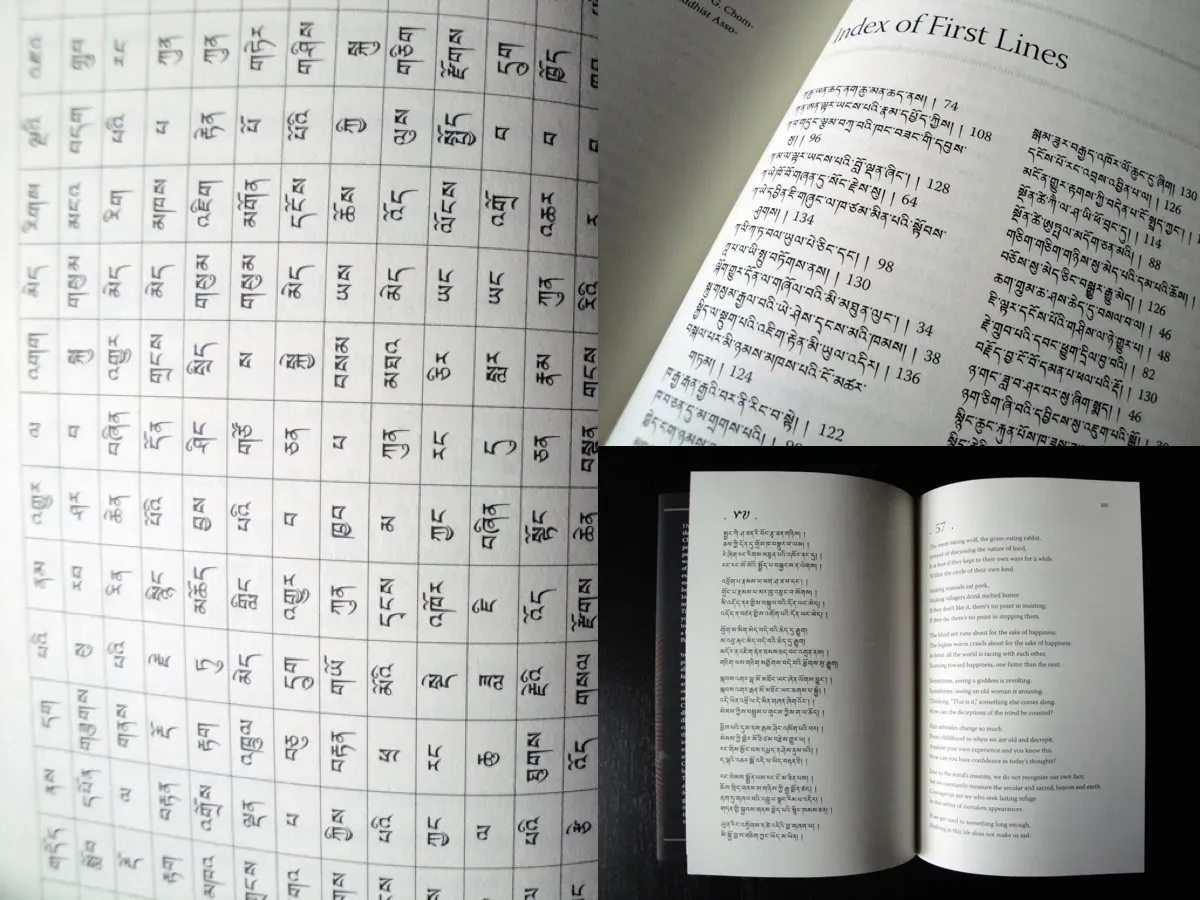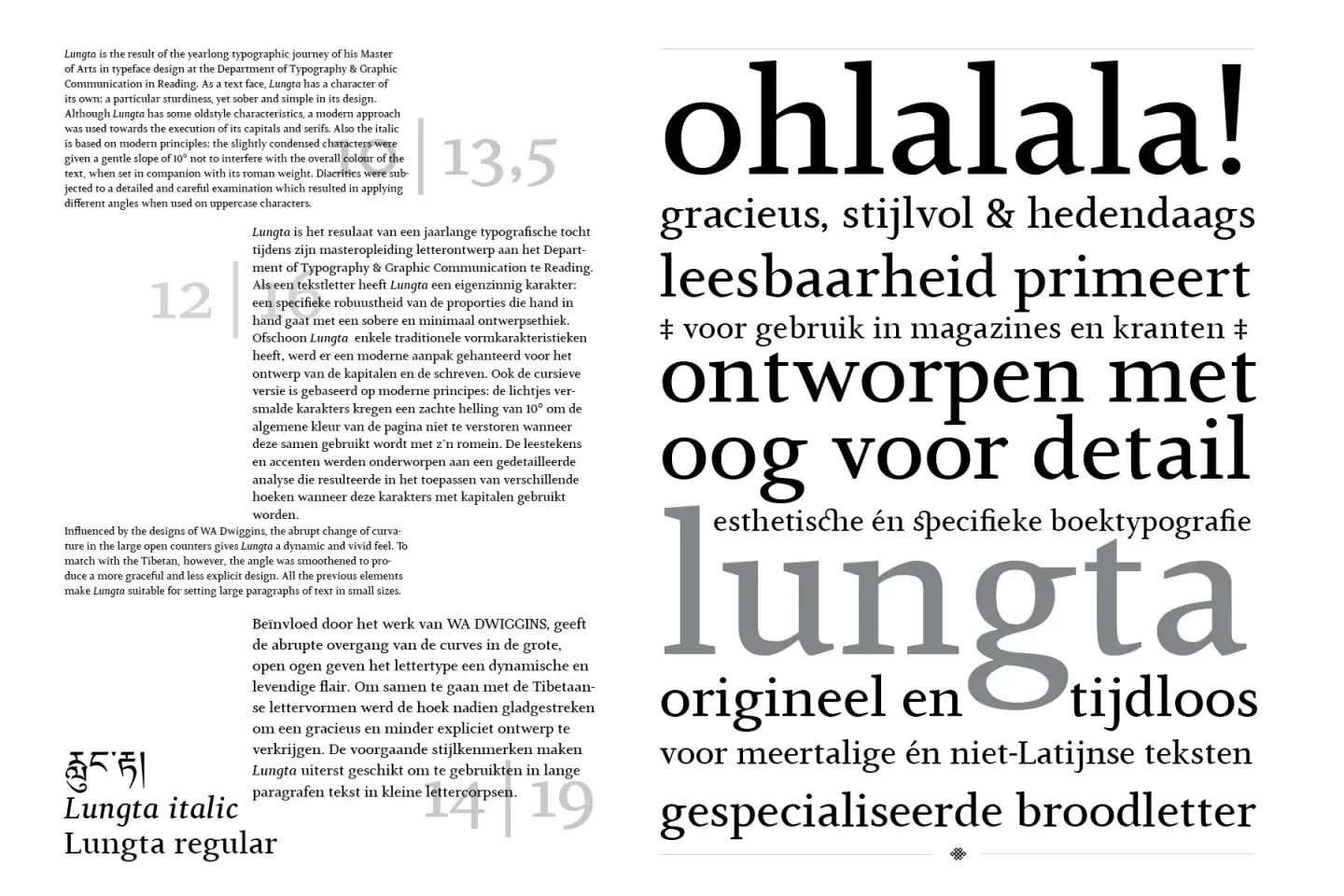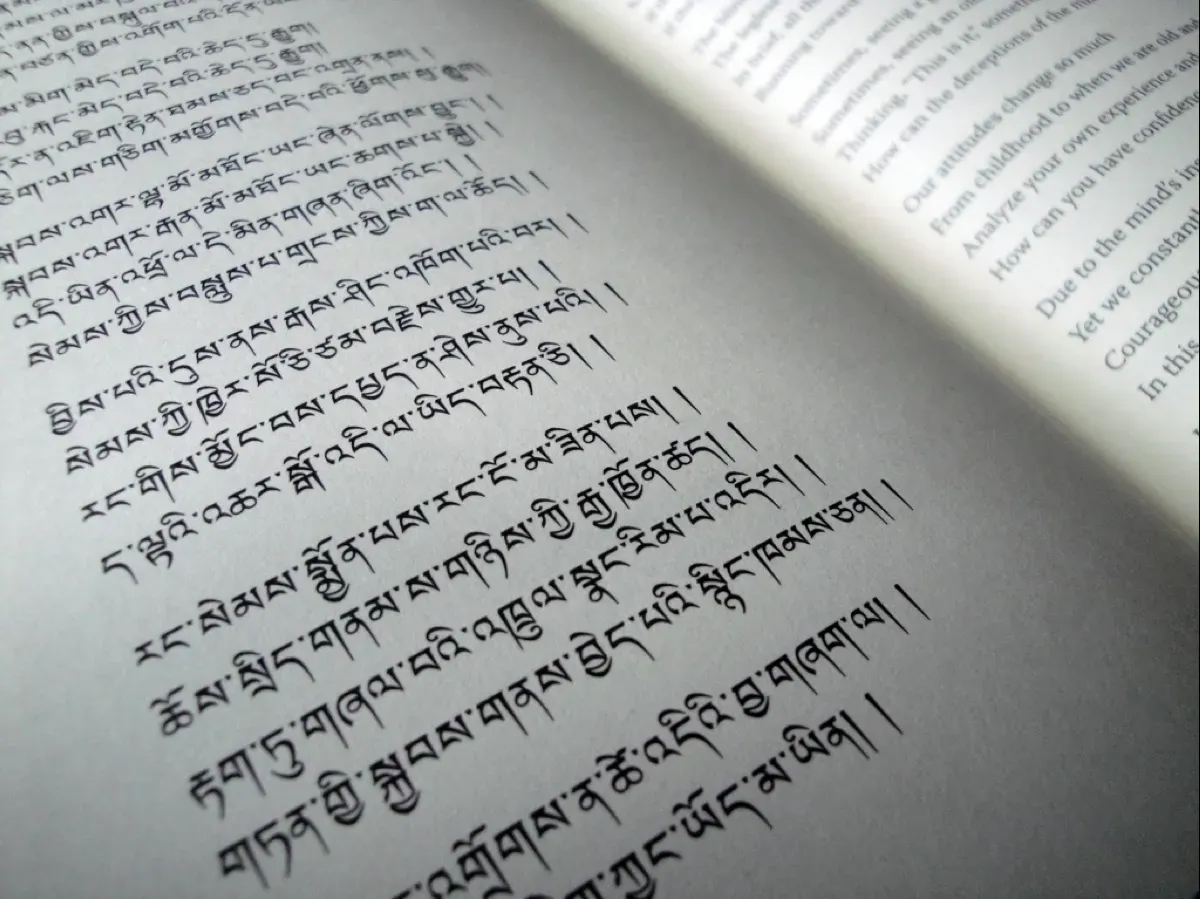
Lungta is the result of a yearlong journey through the amazing world of typeface design at the Department of Typography and Graphic Communication of Reading University.Having set out on creating a typeface of my own, I eagerly accepted the challenge to design a Tibetan font. The final goal was creating a refined digital typeface, attuning a Latin set and making it compatible with a Tibetan one.
As a text face, Lungta has a character of its own: a particular sturdiness, yet sober and simple in design, with large open counters. Although it has some old-style characteristics, a modern approach was used towards the design of its capitals and serifs. Also the italic is based on modern principles: having a gentle slope of 10° and being slightly condensed, not to interfere much with the overall color when set together with the roman in the same text.
Diacritics were subjected to a detailed and careful examination which resulted in applying a different angle when used on the uppercase.
Influenced by the designs of W. A. Dwiggins, the abrupt change of curvature in the counters gives it a dynamic, vivid feeling. To match with the Tibetan however the angle was smoothed to produce a more graceful and less explicit design. All previous elements make Lungta suitable for use in large paragraphs of text set in small sizes.
As OpenType font Lungta supports following features among others: ligatures, discretionary ligatures, historical forms, old-style numerals, tabular or proportional lining numerals, numerators & denominators to create fractions, case-sensitive forms. Extra weights and additional OpenType features are in development.
Lungta is currently in use by The Oxford University Press, and was used for the Tibetan portion of the book In the forest of faded wisdom: 104 poems by Gendun Chopel. This book, edited and translated by Donald S. Lopez Jr, was published in November 2009 by The University of Chicago Press. ◊